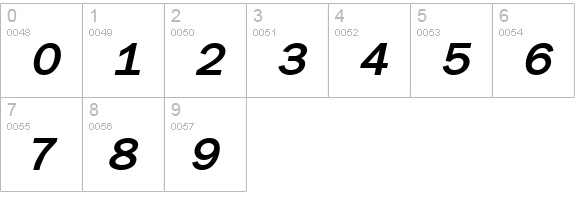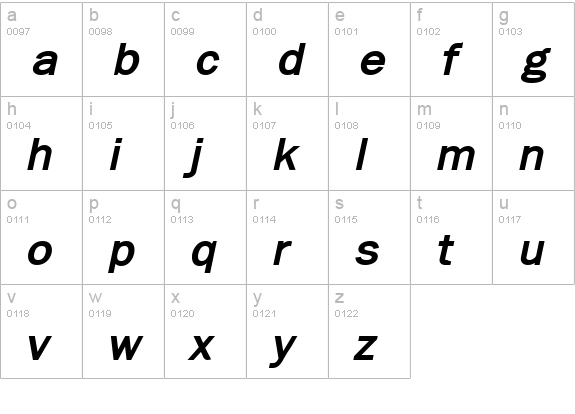
LibraryGothicExtraBoldItalic Font Details
LibraryGothicExtraBoldItalic font is a striking and bold typeface that exudes a sense of sophistication and modernity. With its strong and angular letterforms, this font is perfect for making a statement in your designs. The italicized styling adds a touch of elegance and flair, making it versatile for a variety of creative projects. This font is available for free download at FontsMarket.com, where you can easily access and incorporate it into your design work. Whether you're looking to add a touch of drama to your posters, branding materials, or digital designs, LibraryGothicExtraBoldItalic font is sure to leave a lasting impression. Download it today and elevate your design projects with this eye-catching typeface.